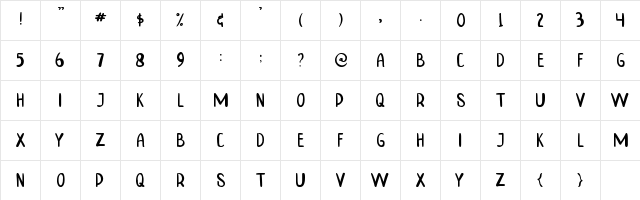
TINNY HURRY Regular
| Designer | MJB Letters 2018 |
Design Context for TINNY HURRY Typeface
TINNY HURRY offers clean, dependable letterforms without strong stylistic allegiance, making it a practical choice for designers who need flexibility.